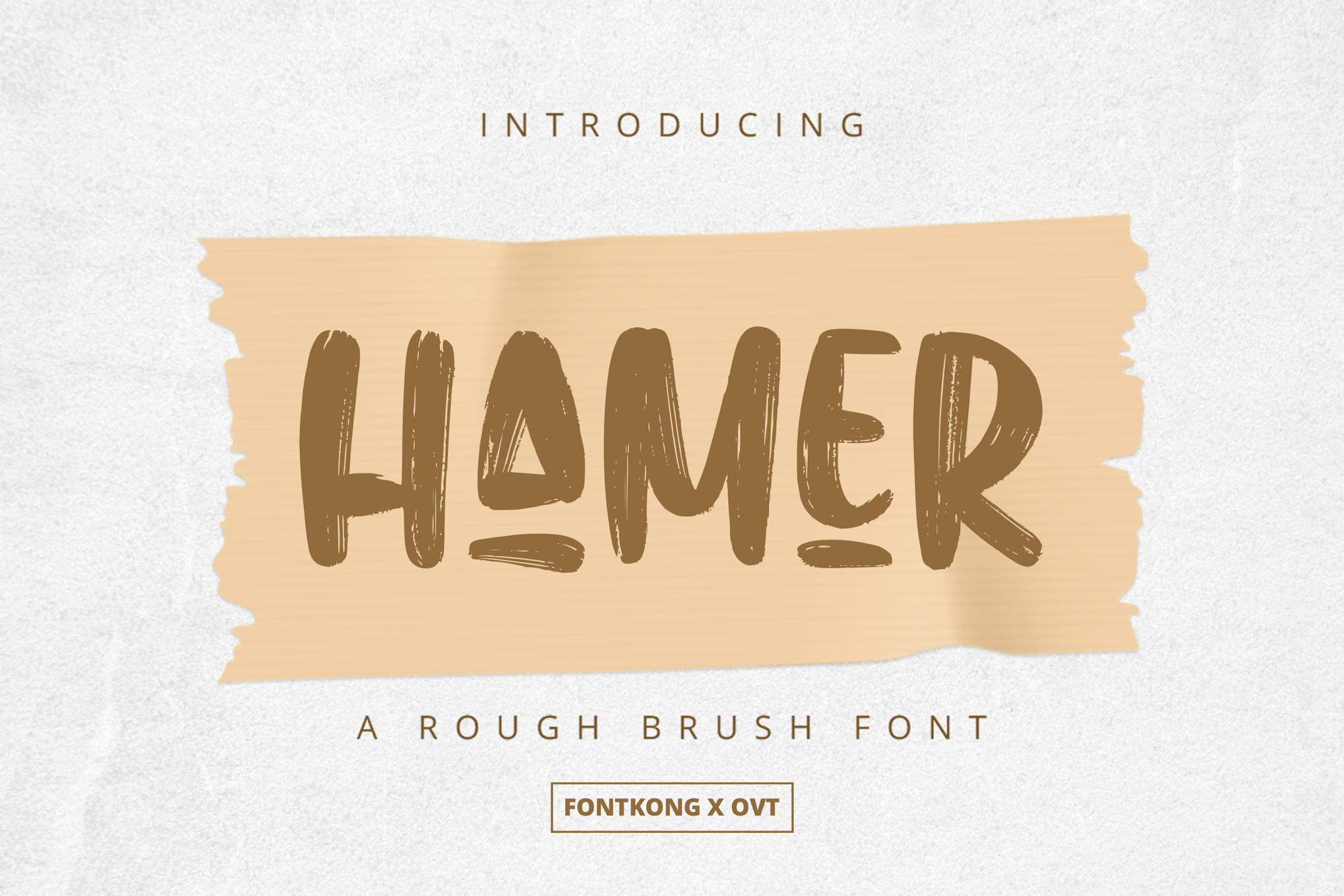
Hamer - Rough Brush Font
Perfect for posters, logos, branding, social media graphics, apparel designs, and artistic projects.
The Hamer - Rough Brush Font excites designers with its bold, textured brush strokes that deliver a raw, expressive look full of personality and movement.
The Hamer - Rough Brush Font Free Download is a dynamic typeface crafted to bring energetic, hand-painted flair to your creative work. Its rough brush texture creates a vivid and authentic feel, perfect for projects that need to stand out with artistic intensity. Whether you’re designing posters, logos, or apparel graphics, Hamer infuses your designs with bold impact.
One of the key strengths of Hamer - Rough Brush Font is its perfect balance between wild brush textures and readability. Despite its expressive style, it remains clear and effective for headlines and display text, ensuring your message is both powerful and legible.
In branding, Hamer conveys creativity, energy, and authenticity. It pairs excellently with vibrant colors, textured backgrounds, and dynamic layouts, helping brands connect with audiences seeking originality and boldness.
For digital projects, this font enhances website headers, social media posts, and promotional materials with its textured, brush-style personality. Its raw energy guarantees your digital presence stands out with confidence and flair.